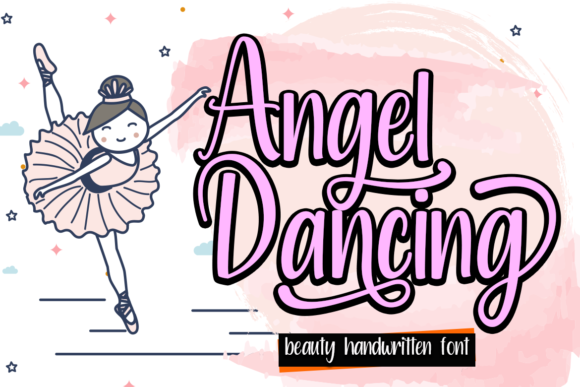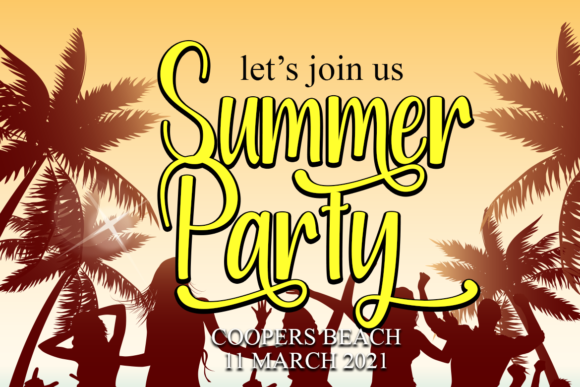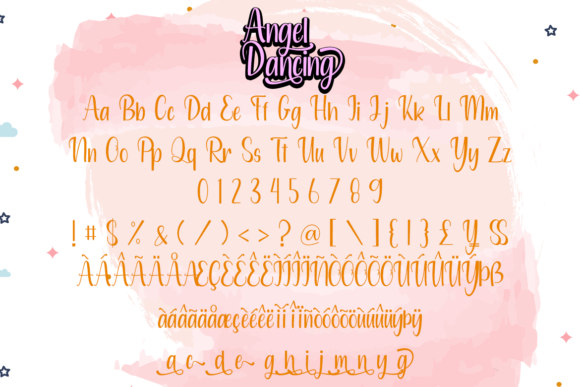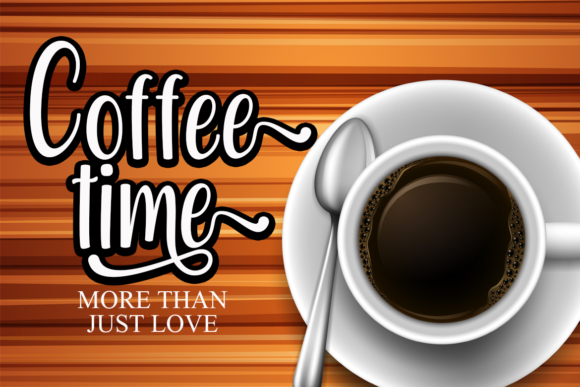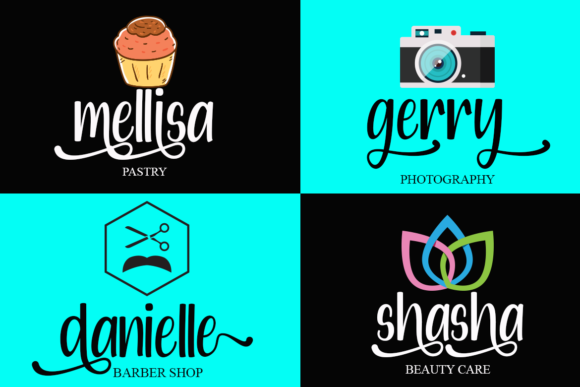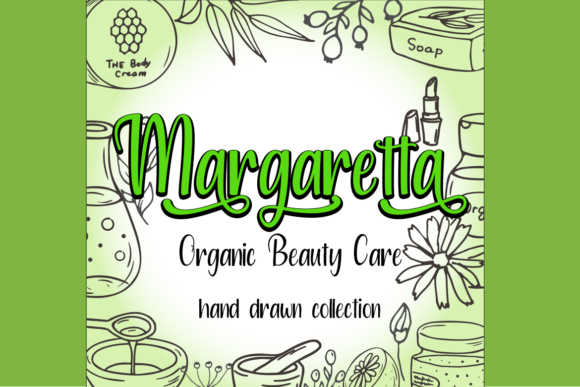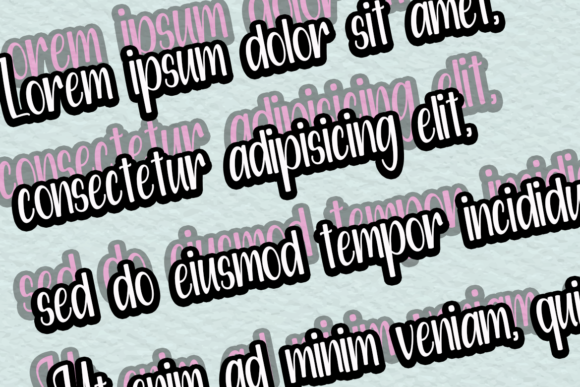
When Creativity Strikes
Have you ever been in the midst of brainstorming a new project, and suddenly a spark of inspiration hits you? The ideas start flowing, and you can’t wait to bring your vision to life. For many designers, this moment is what drives them to create something truly special. And for those who are looking for the perfect font to match their artistic flair, the Angel Dancing Font is about to become their new best friend.
This modern and eye-catching handwritten font is designed to add a touch of personality to any project. From logos and branding to social media and crafty DIY projects, the Angel Dancing Font is the perfect fit for anyone who wants to make a statement. Its clean and quirky style makes it a valuable asset for designers who want to stand out from the crowd.
Angel Dancing Font Key Features
- Font Style: Script, Handwritten
- Unique Characteristics: Elegant, flowing script style with intricate details and flourishes, perfect for creative and artistic projects
Designer Review: Angel Dancing Font
First of all, I have to say that I’m a big fan of this font. The ✨ whimsical feel of it is just perfect for creating a magical and dreamy atmosphere. The way the characters dance and swirl together is really unique and adds a touch of personality to any design project.
One of the things that really stands out about this font is its versatility. It can be used for a wide range of applications, from children’s books to advertising and marketing materials. The font is also highly customizable, with options for size, color, and spacing that make it easy to get the look you want.
- ✨ Unique and whimsical feel
- Perfect for creating a magical and dreamy atmosphere
- Works well for a wide range of applications
- ⚠️ May not be suitable for formal or professional designs
- ⚠️ Can be difficult to read in small sizes
Overall, I would give the Angel Dancing Font a solid 4 out of 5 stars. It’s a great choice for designers who want to add a touch of magic and whimsy to their projects. However, it may not be the best choice for formal or professional designs.
Tips for Getting the Most Out of Angel Dancing Font
Use Angel Dancing Font for whimsical and playful designs, such as invitations, social media graphics, and children’s book illustrations.
Pair Angel Dancing Font with bold and bright colors to create a fun and energetic look.
Experiment with different font sizes and styles to create a unique and eye-catching design.
Angel Dancing Font is perfect for:
Invitations and party graphics
Social media graphics and posts
Children’s book illustrations and educational materials
Whimsical and playful designs for any occasion
Alternatives to Angel Dancing Font
1. Dancing Script
Dancing Script is a beautiful, elegant script font that mimics the movement of a dancer. It is perfect for creating invitations, wedding cards, and other special occasions. Unlike Angel Dancing Font, Dancing Script has a more fluid and smooth motion, making it ideal for those who want a more dynamic look.
Great Vibes is a modern, elegant script font that exudes a sense of sophistication and refinement. It is perfect for creating logos, branding materials, and other high-end designs. Compared to Angel Dancing Font, Great Vibes has a more refined and polished look, making it ideal for those who want a more professional appearance.
Alex Brush is a beautiful, handwritten font that has a unique, whimsical feel. It is perfect for creating designs that need a touch of personality and flair. Unlike Angel Dancing Font, Alex Brush has a more relaxed and casual look, making it ideal for those who want a more laid-back vibe.